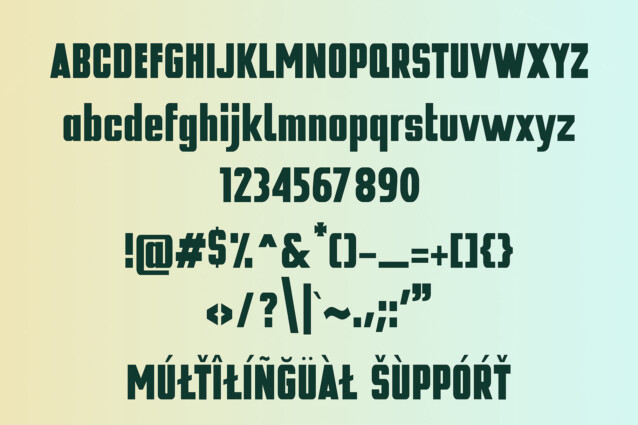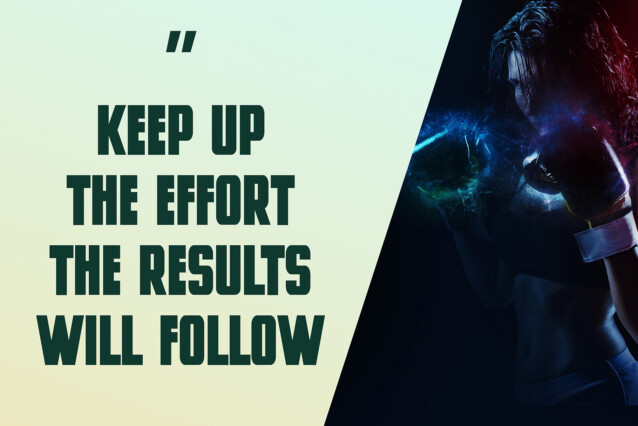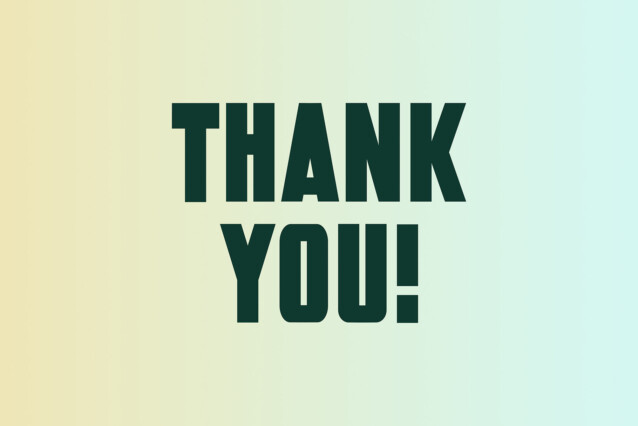
Echelon Font is a simple and display font. So perfect for you who needs a typeface for logo designs, magazine, social media, brochure, and many more.